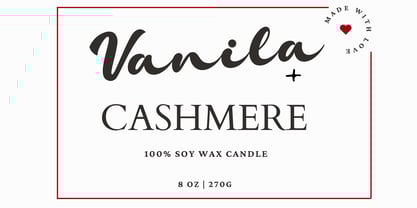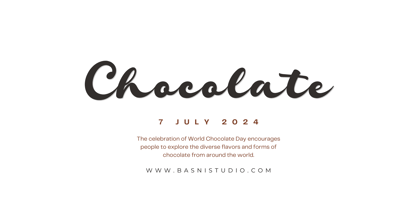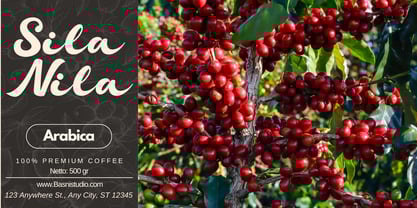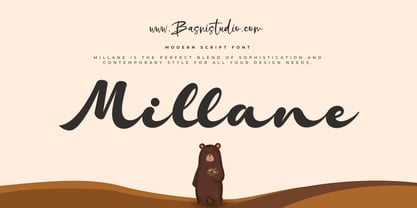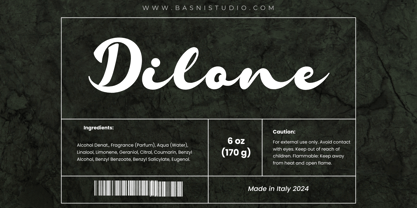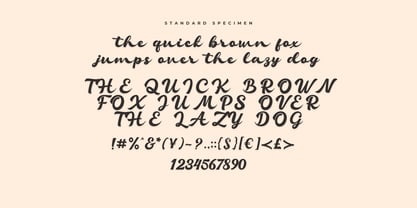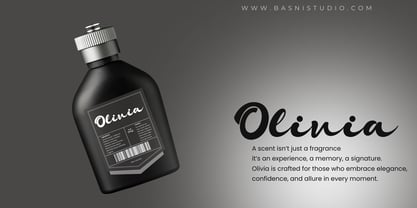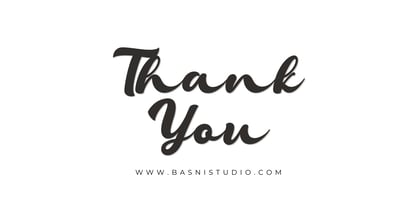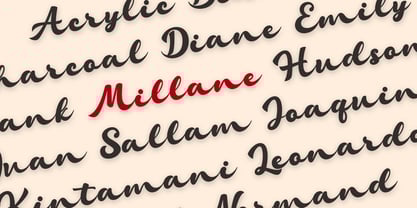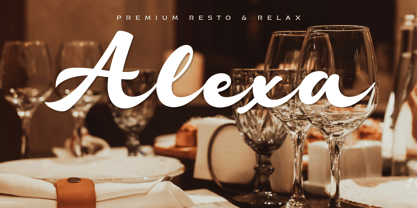
Millane
by Basnistudio
The Millane Font Family was designed by Bery Arisandi and published by Basnistudio. Millane contains 1 styles.
The perfect blend of sophistication and contemporary style for all your design needs.
In a world where first impressions matter, your typography speaks volumes.
Introducing Millane, a modern script font that effortlessly combines Bold and sleek, flowing lines with a fresh, contemporary edge.
Whether you’re crafting a stunning logo, designing eye-catching social media posts, or creating unforgettable wedding invitations,
Millane is your go-to choice for adding a touch of class and creativity.
Versatile & Dynamic: Perfect for both digital and print projects, from branding to packaging.
Stand Out: With its unique character set and smooth curves, your designs will leave a lasting impression.
• Uppercase & lowercase letters
• Ligatures
• Numbers & punctuation
• Multilingual Support ( Support for 90 languages )